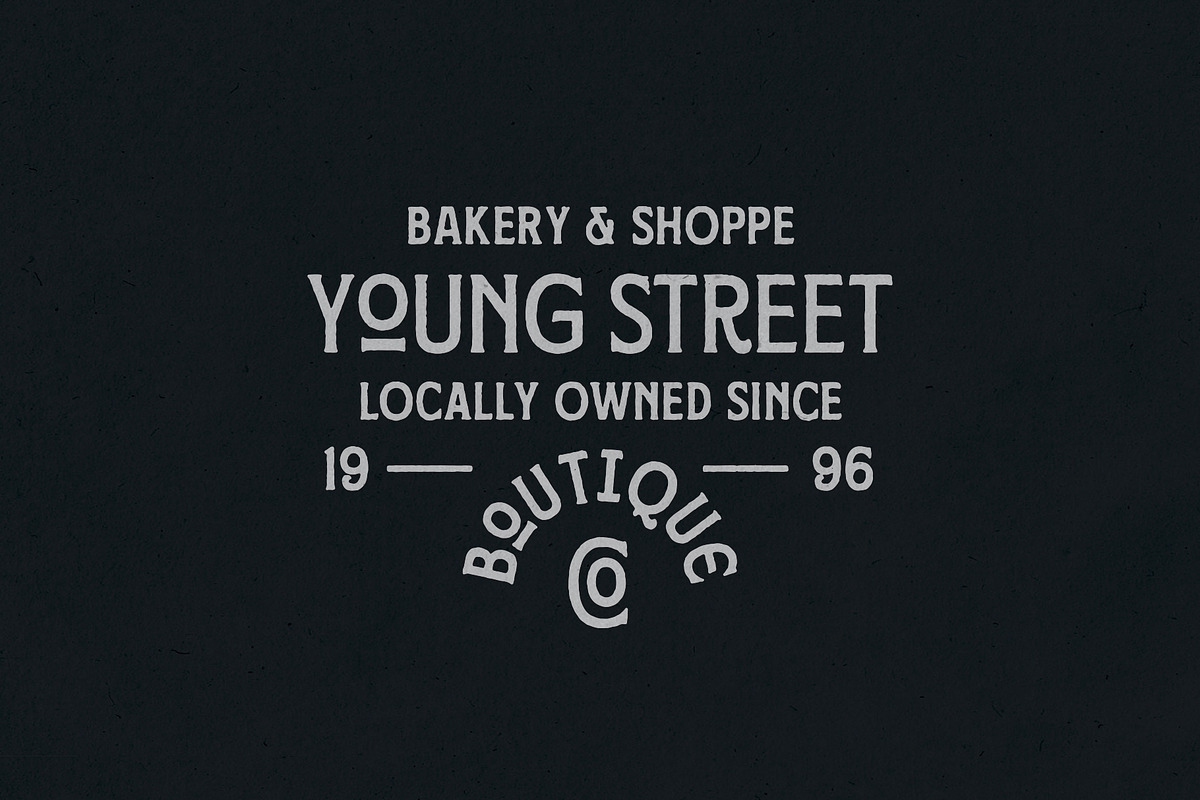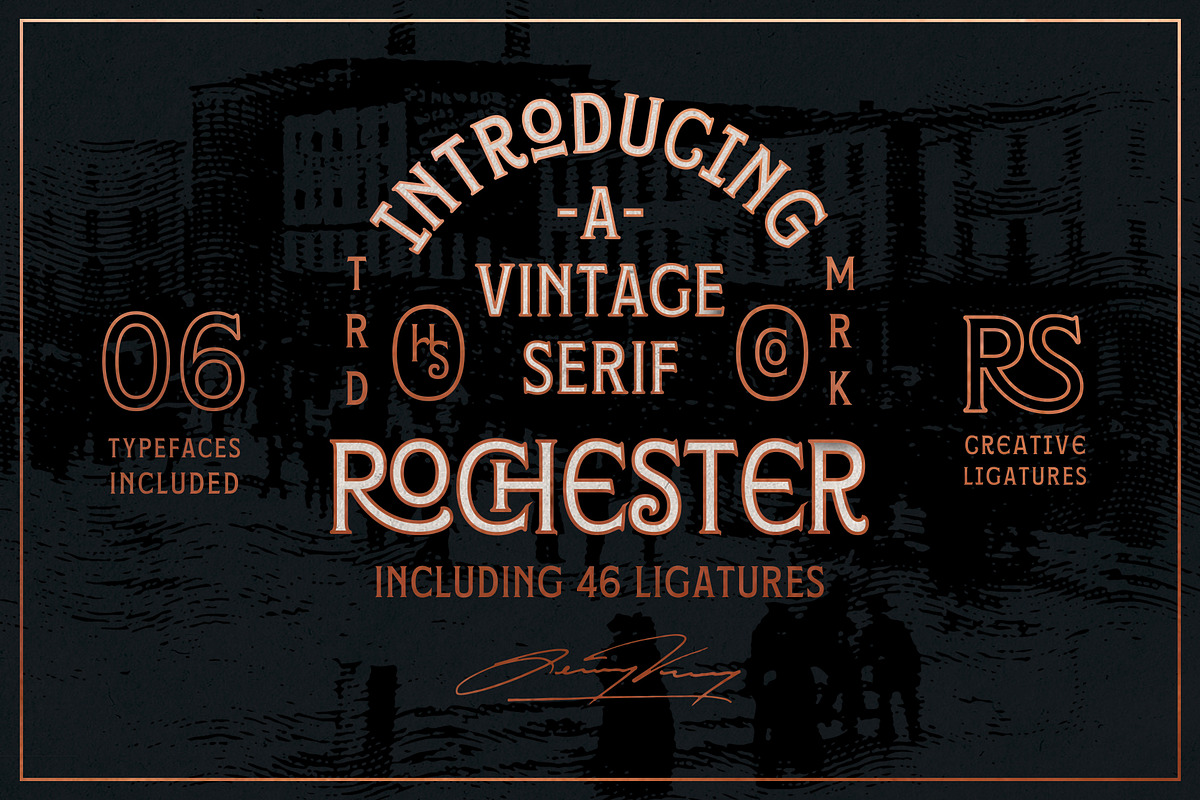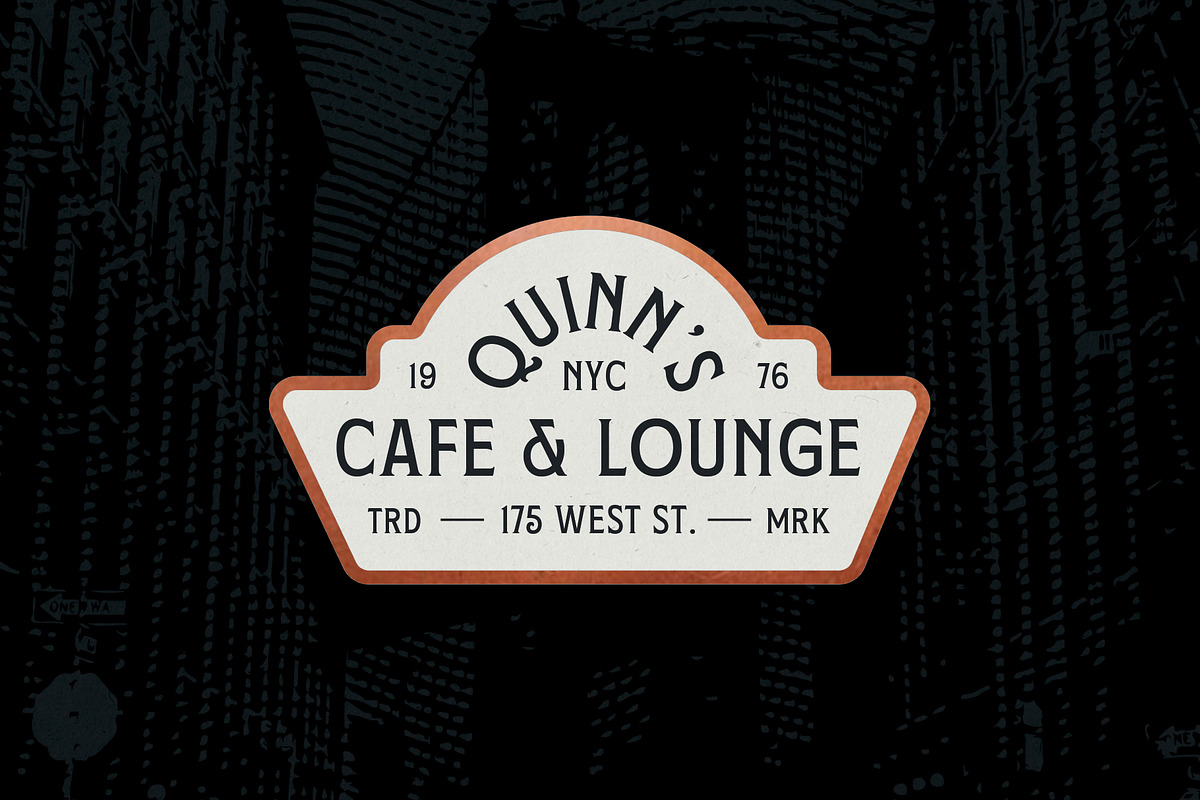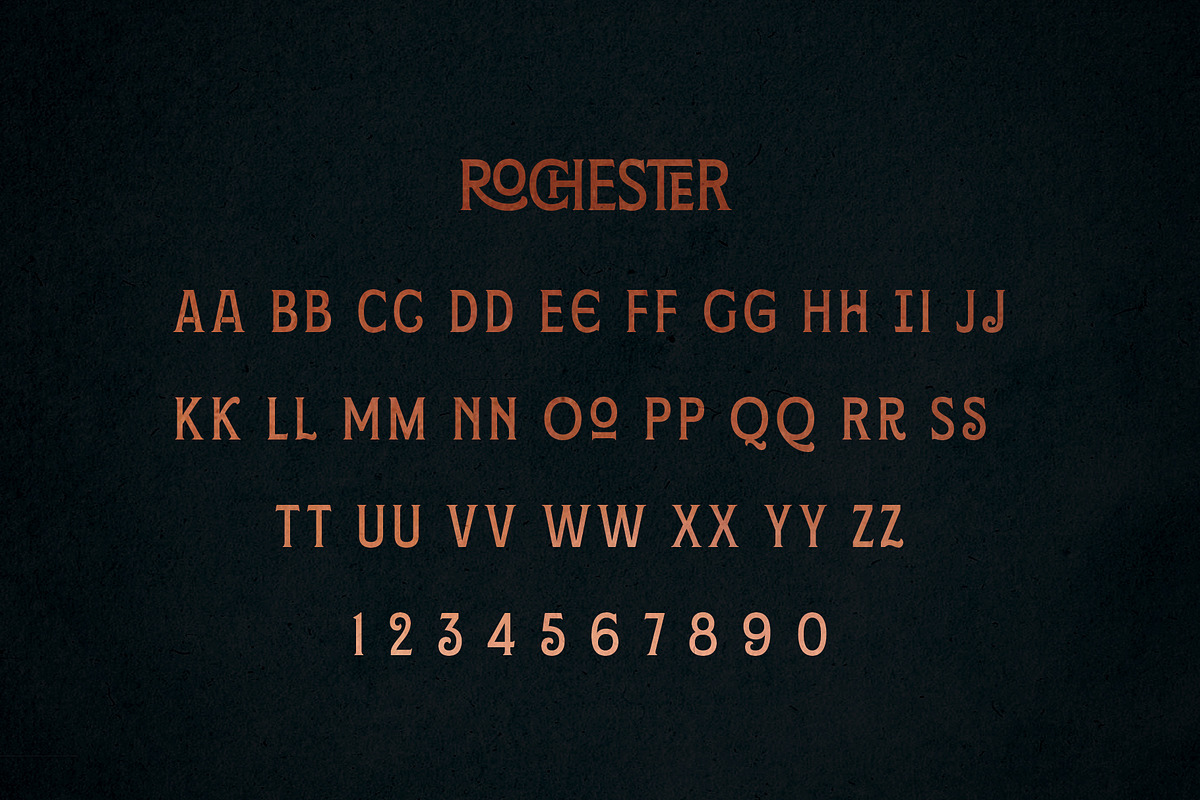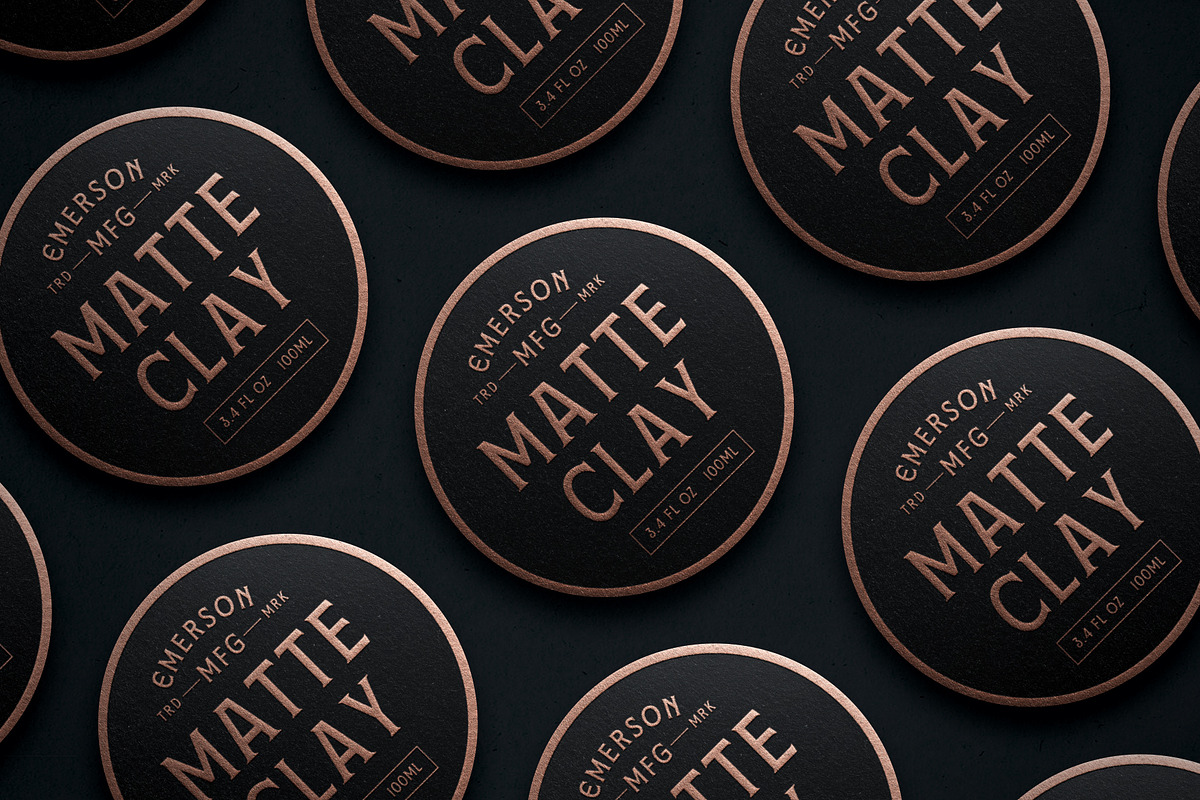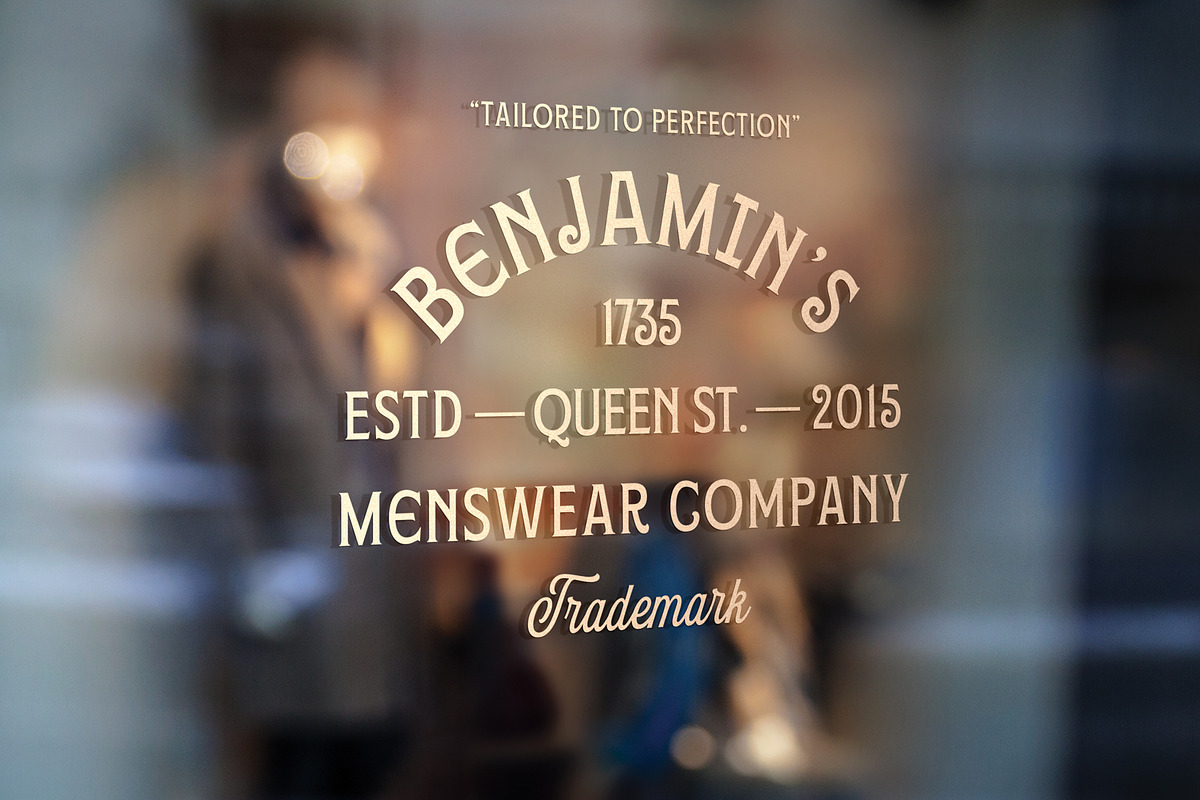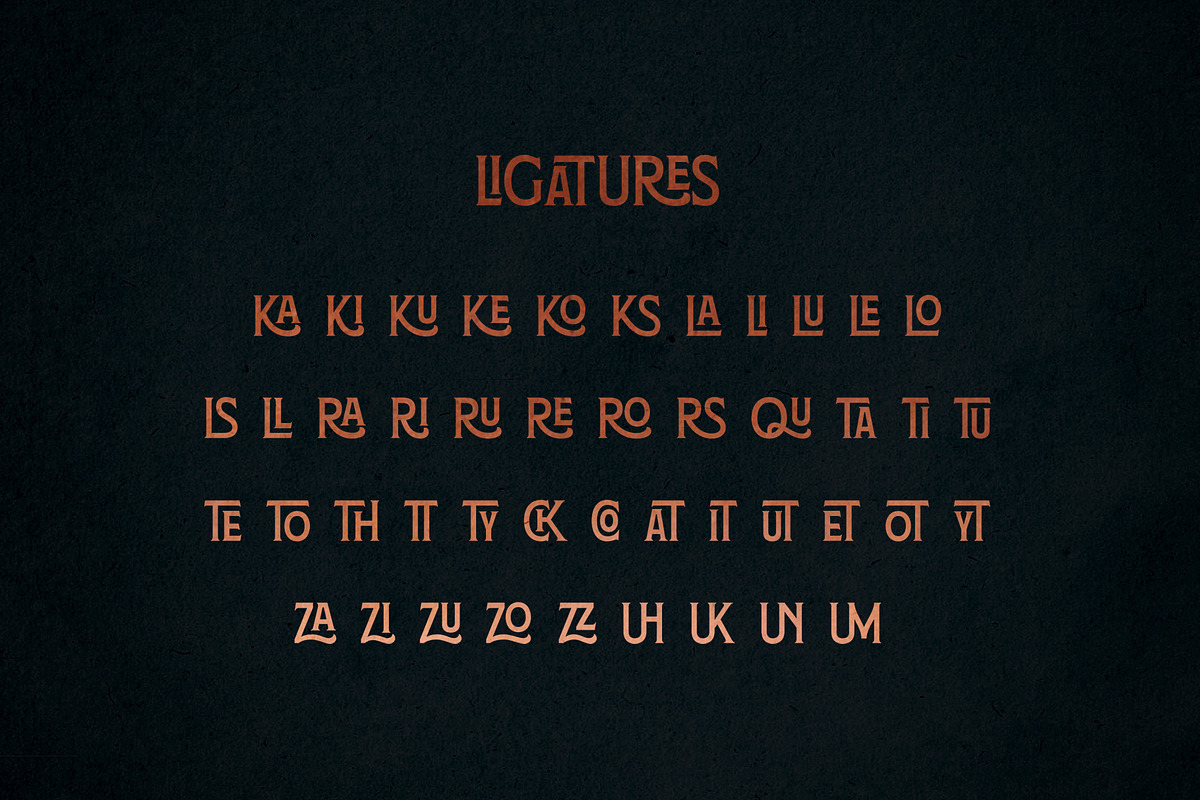
Rochester - with 46 Ligatures
Rochester
Rochester is a vintage spur serif typeface that includes 46 ligatures, making this a very versatile typeface. Create stunning logos, labels, headlines, flyers and more with Rochester.
- 46 Ligatures
Created in collaboration with Umar Al Farouq for HSCO